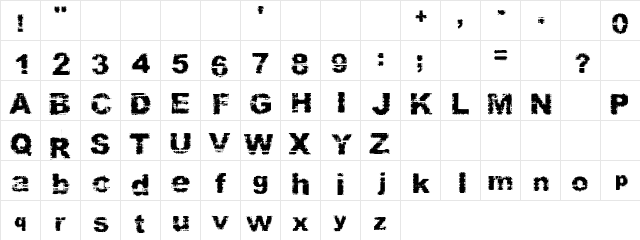
Kurlon Regular
Design Context for Kurlon Typeface
Kurlon takes a measured approach to typography — its balanced proportions and neutral character make it a reliable workhorse for both digital and print work.